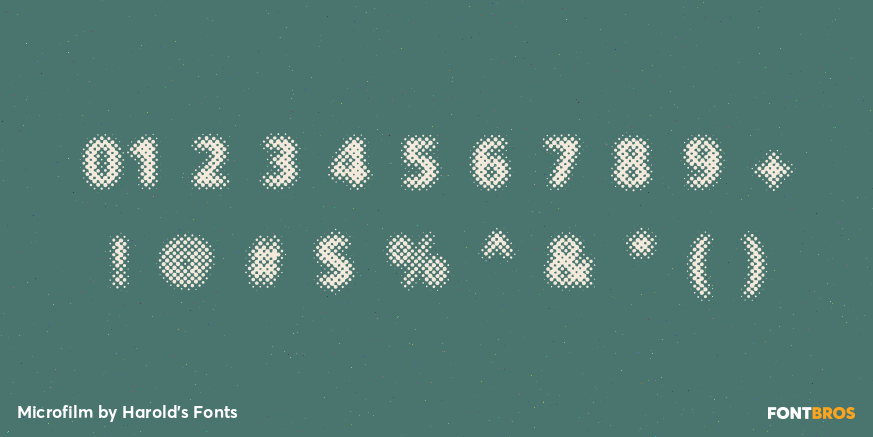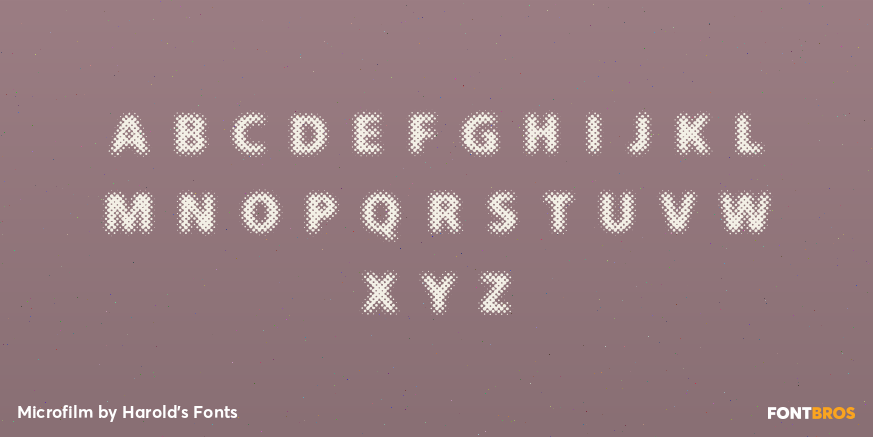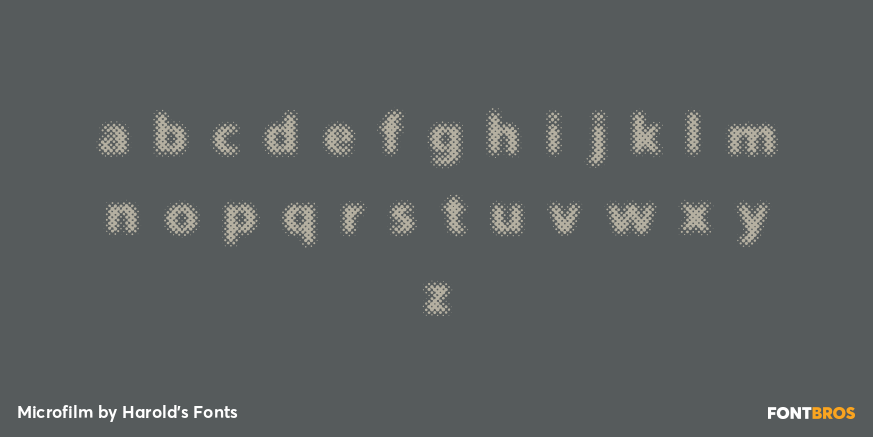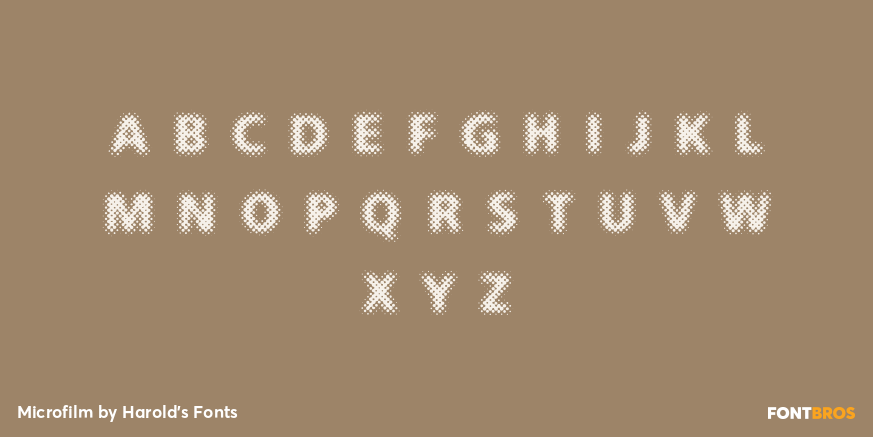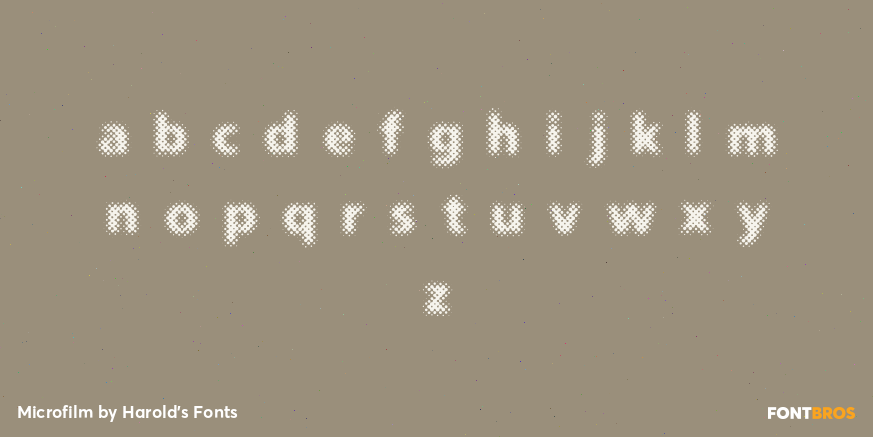
Microfilm
Font Family by Harold's Fonts
MICROFILM is a special effects font with a strong dot screen texture, a mix of past and future. It resembles a bold sans serif font that's somewhat out of focus.